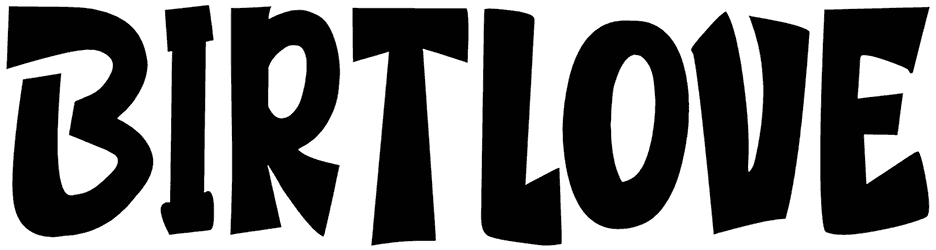
Birtlove Font
Birtlove is a playful and whimsical way to add personality to any design. This cartoon font‘s famous lines and exaggerated curves bring to mind the colorful world of cartoon animations and can instantly get you back to your childhood. Every letter in this fancy font is energetic and invites you to join the fun in designing posters, packaging, apparel, and advertisements.